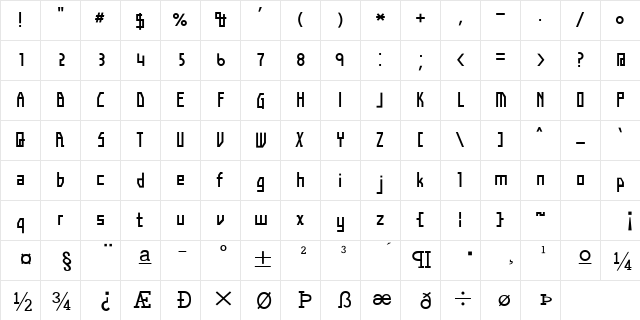
״ɑ섓8̴ Regular
Design Context for ״�ɑ섓8̴ Typeface
״�ɑ섓8̴ offers clean, dependable letterforms without strong stylistic allegiance, making it a practical choice for designers who need flexibility.